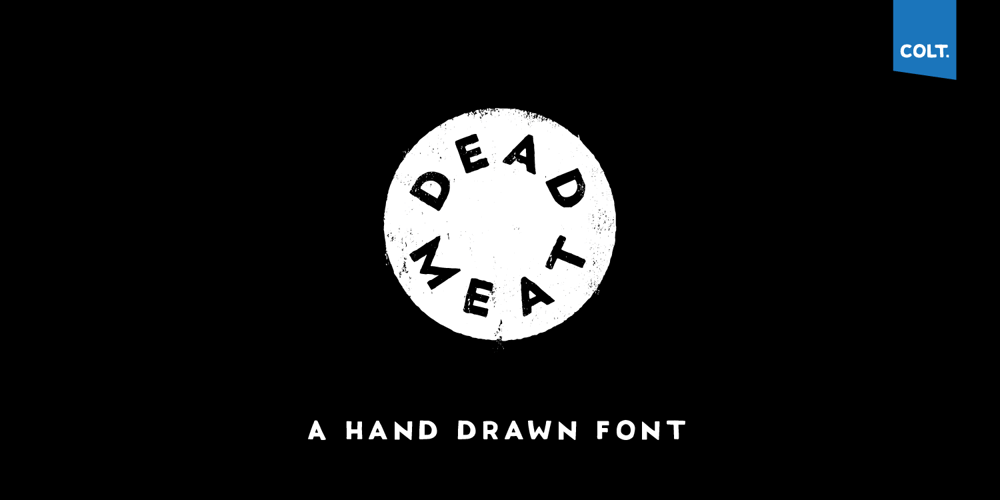
Dead Meat Font Family was designed by Adam Greasley and published by wearecolt. Dead Meat contains 1 styles and family package options. DEAD MEAT – a bold, uppercase display font. Give your titles and logo types a hand made lettering look Features All uppercase font (use lower case key strokes for alternative character). Each glyph is unique from hand drawn originals. – Web font format included. The zip package contains both an opentype (.oft) and web font (.woff), DEAT MEAT has been created with all Western European characters.